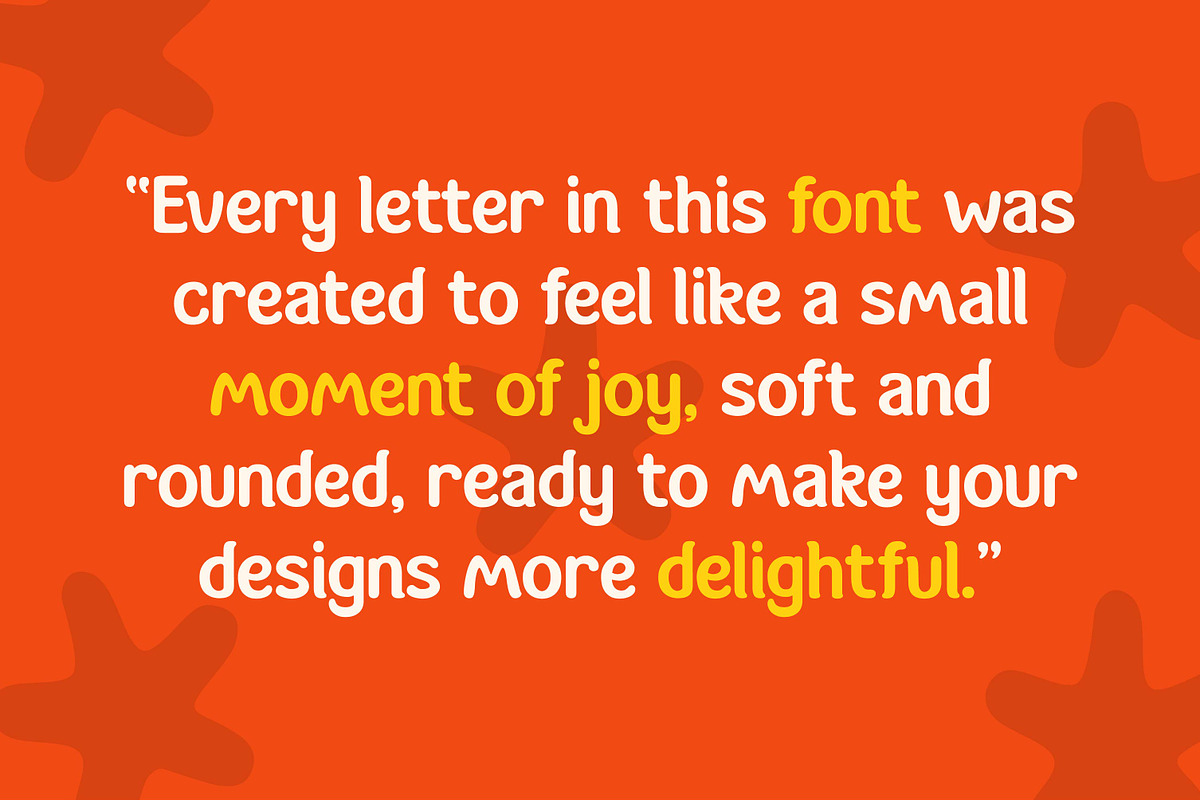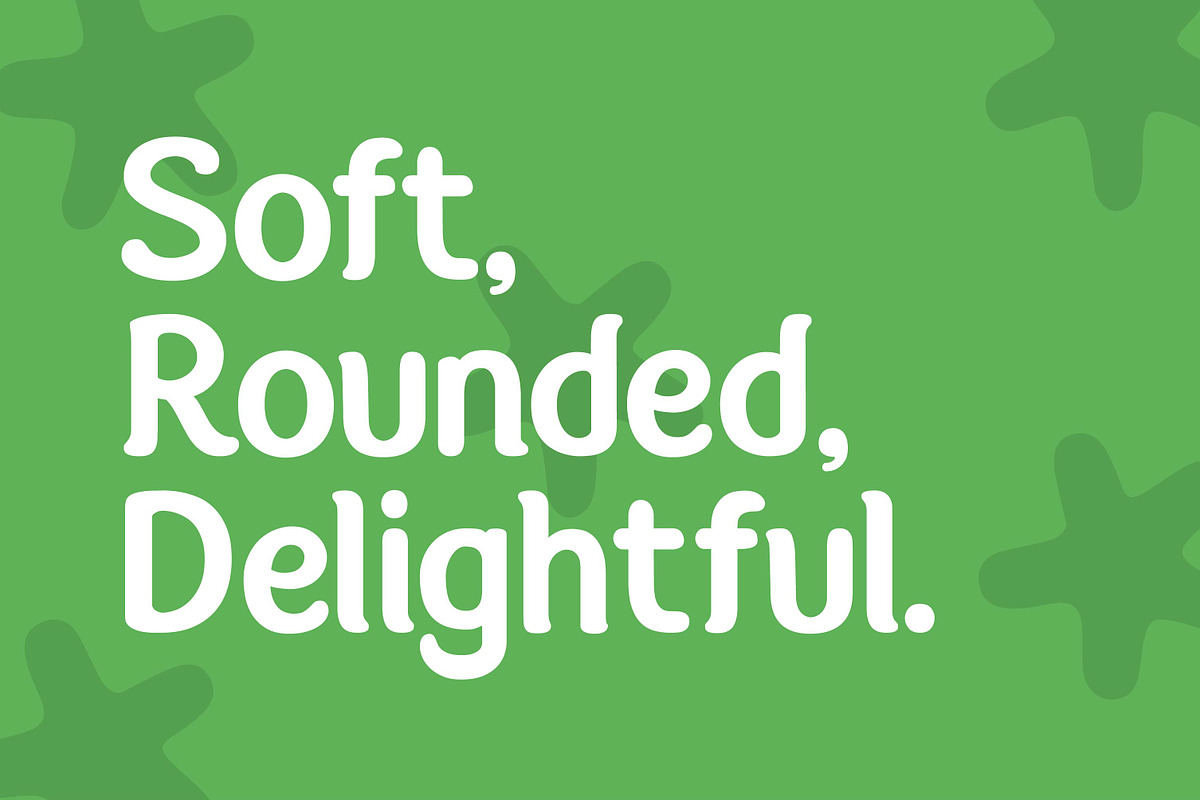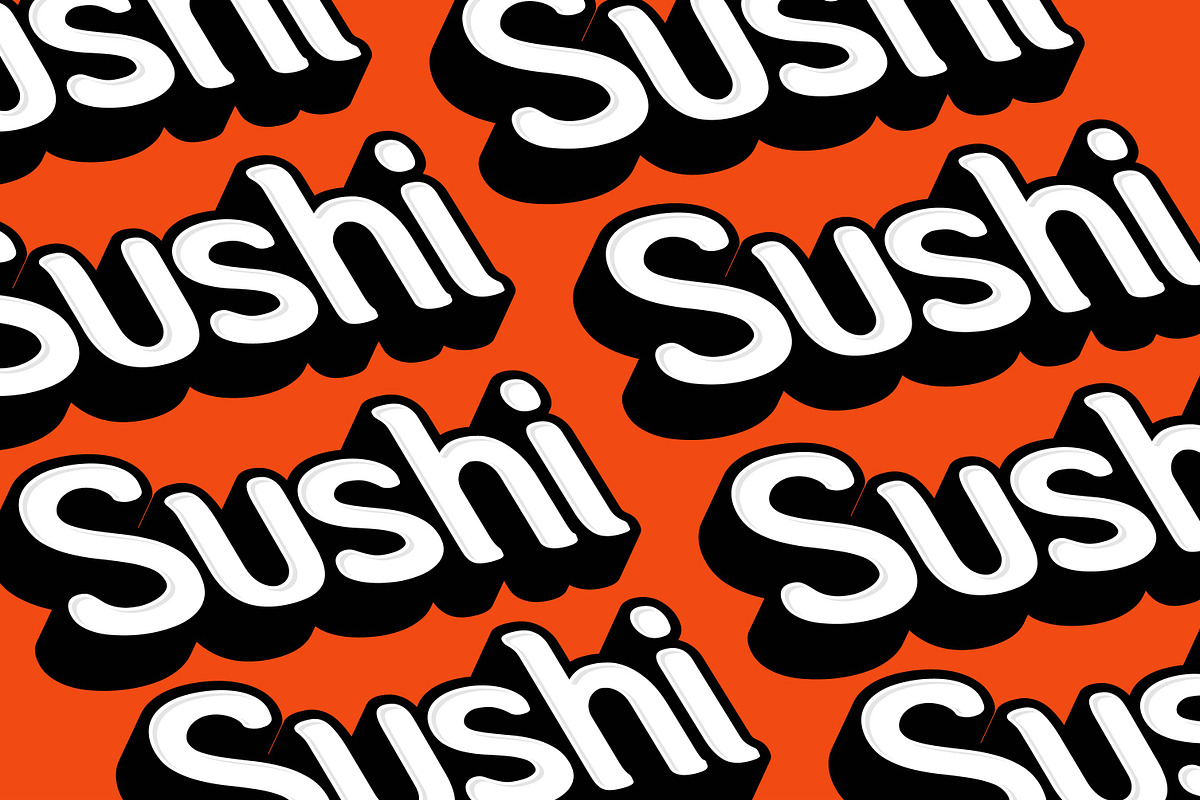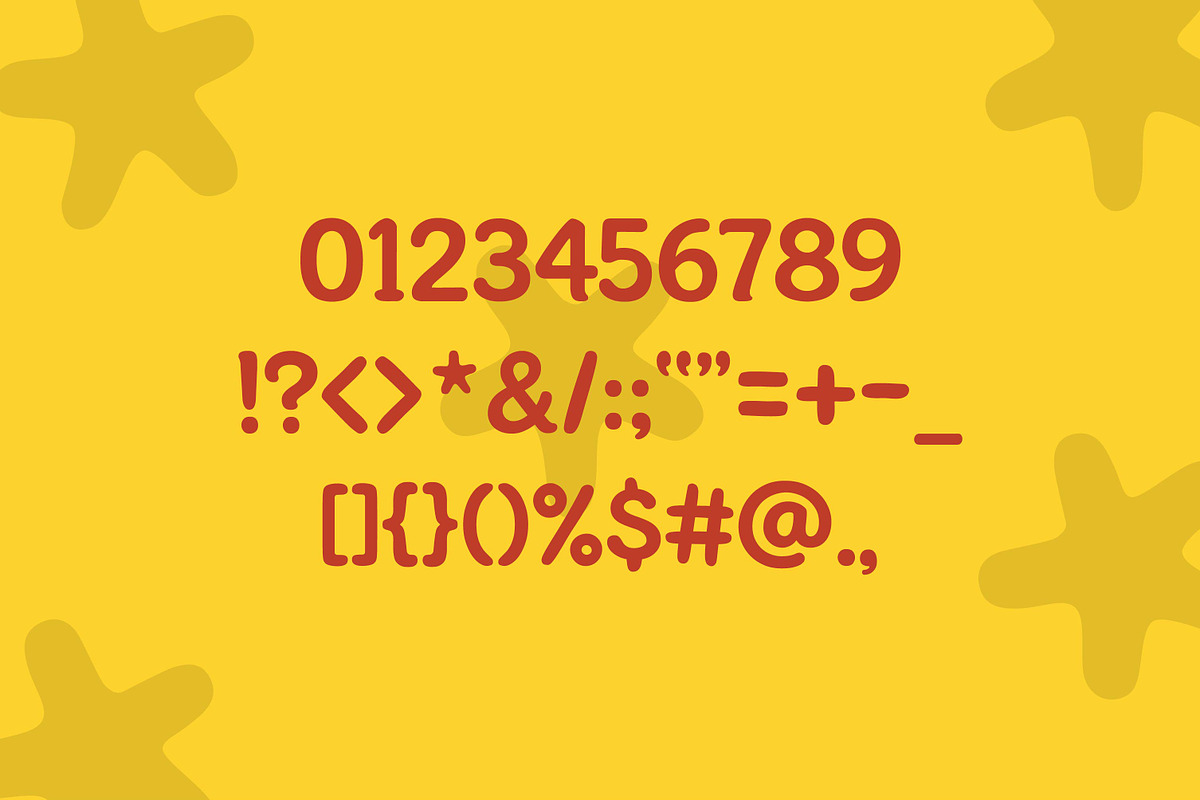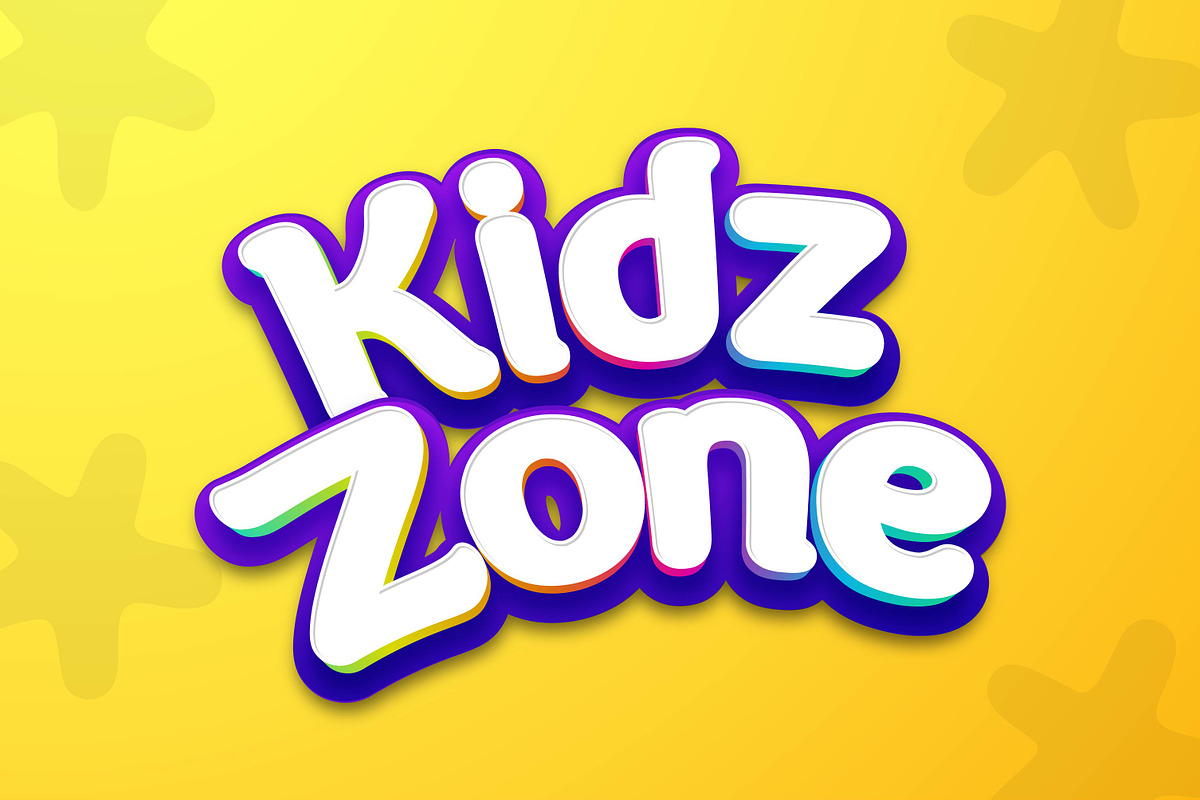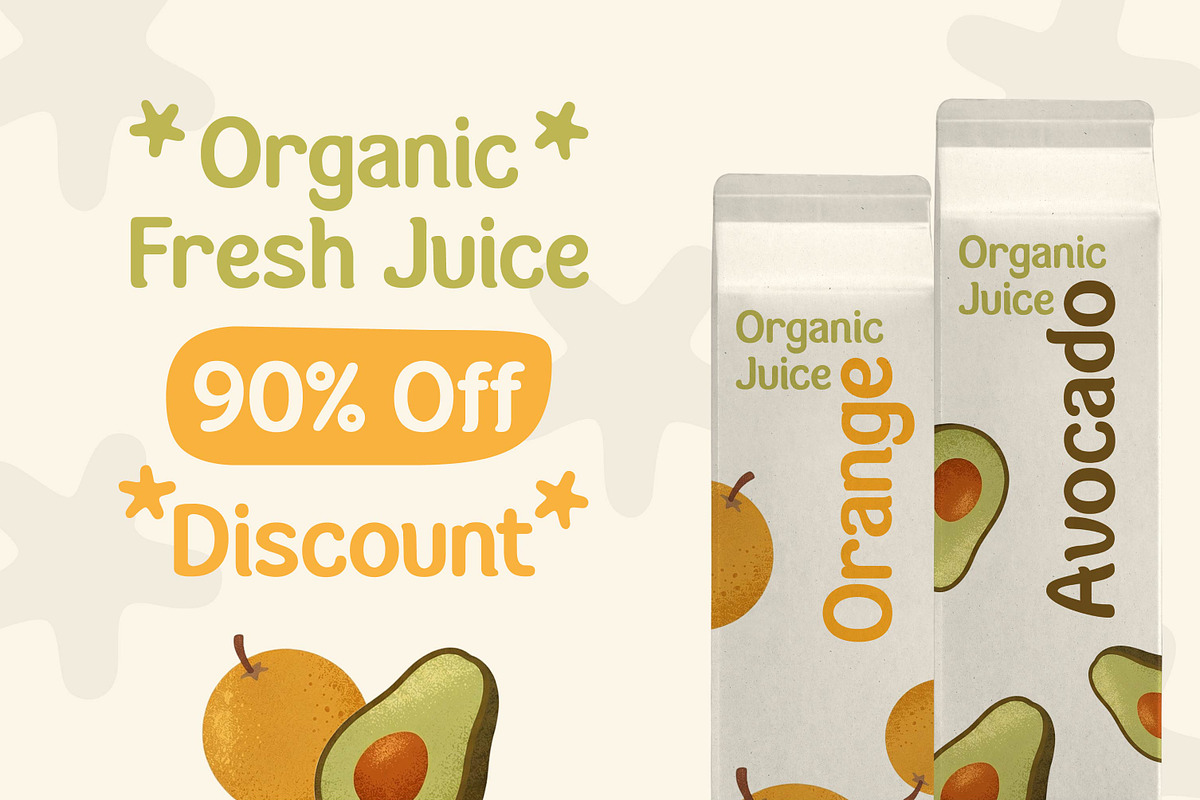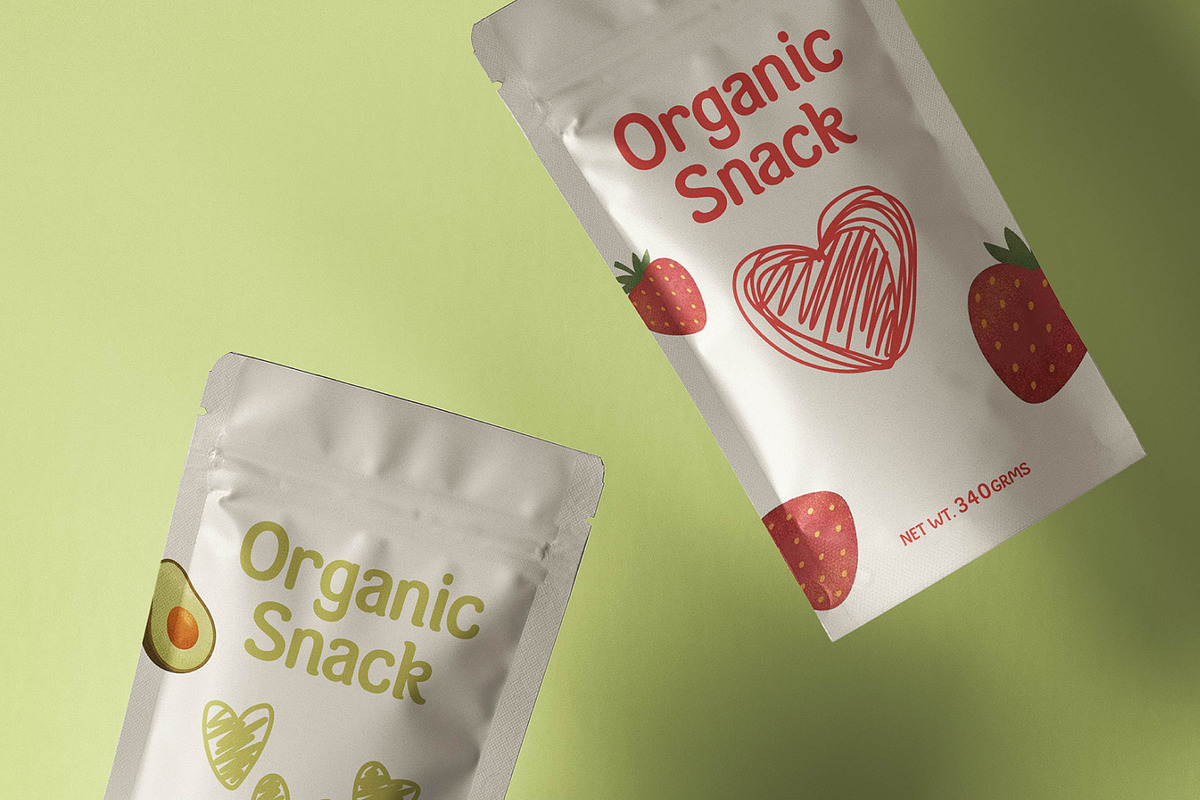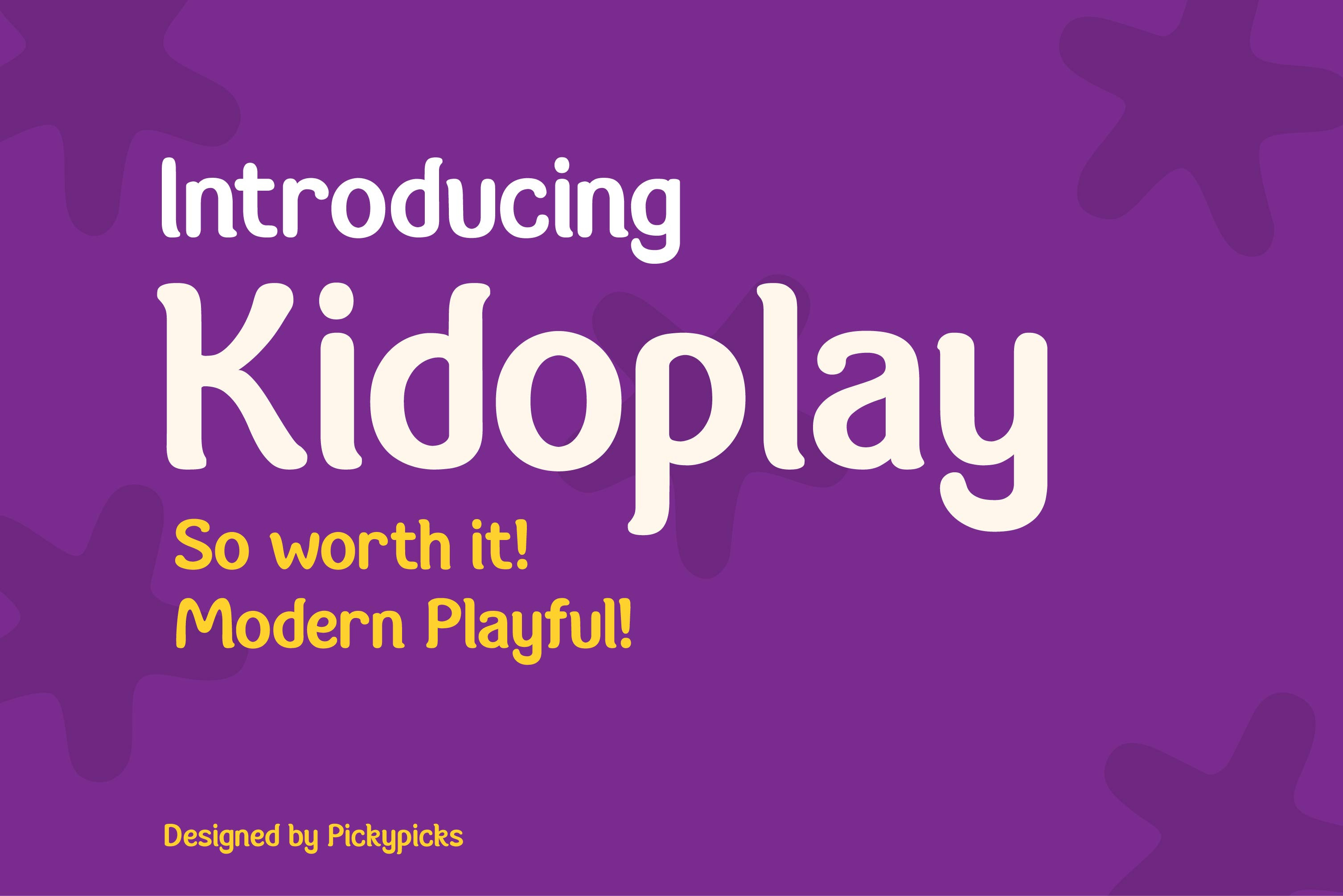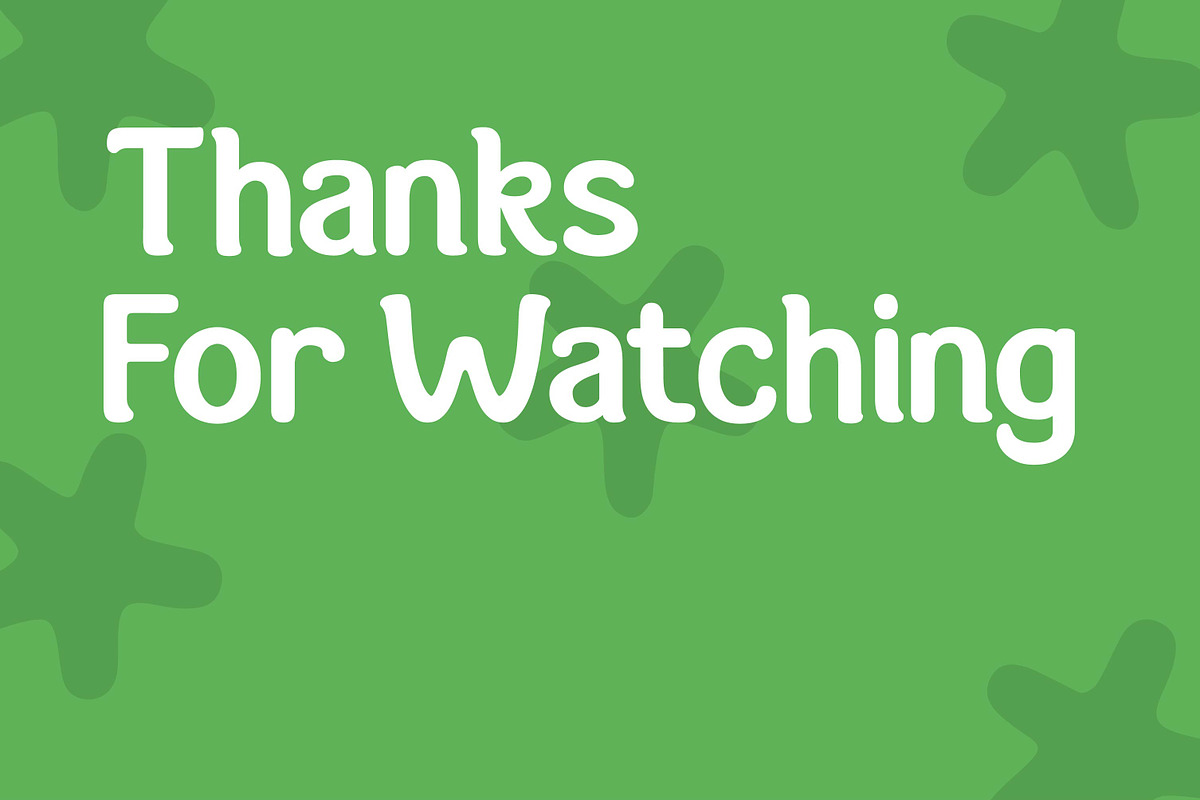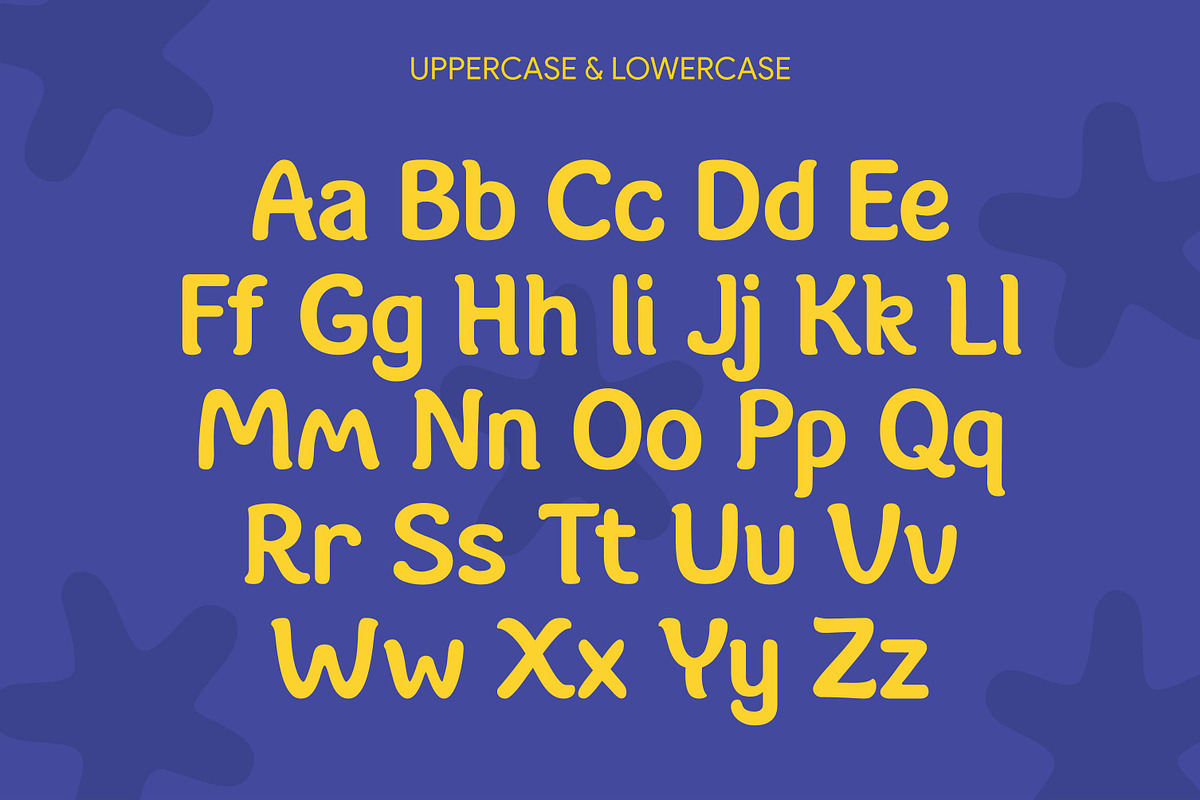
Designed by Mohamad Fiky Faikar al rasyid Owner of PickyPicks
Kidoplay – Playful Kids Display Font
Kidoplay is a fun and modern playful display font designed to bring joy and creativity to your projects. With its smooth curves, bold shapes, and friendly character, this font is perfect for designs that need a cheerful and eye-catching touch.
Kidoplay works great for kids-related designs, educational materials, toys, branding, packaging, posters, book covers, and social media content. Its unique style makes your text stand out while still being easy to read.
Whether you're creating designs for children or simply want a lively and creative vibe, Kidoplay is the perfect choice.
Add a touch of fun and personality to your designs with Kidoplay!